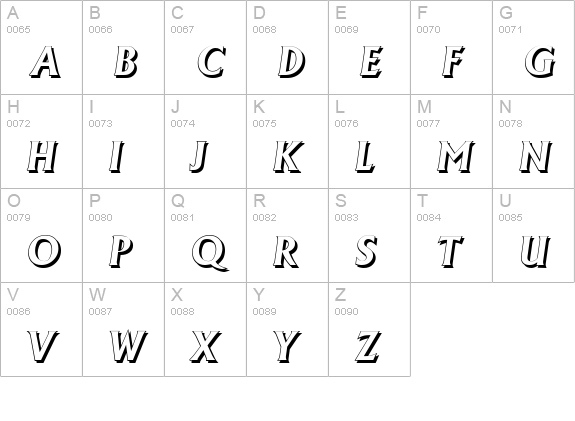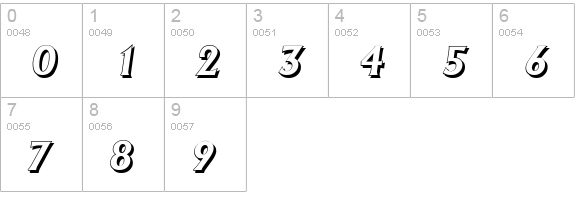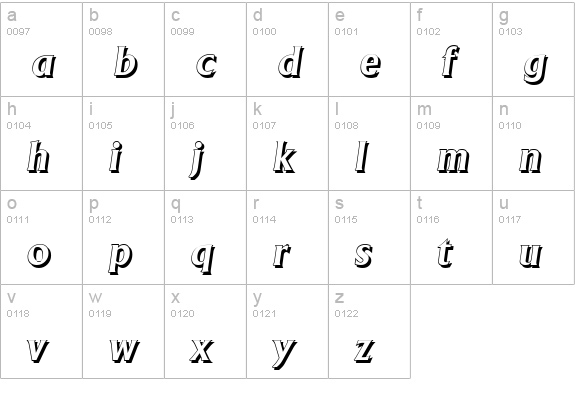
AdelonShadow-BoldItalic is a striking and bold font that commands attention with its unique blend of elegance and modernity. The italicized design adds a touch of sophistication to any project, making it perfect for bold headlines, branding, and creative designs. The strong and dynamic appearance of AdelonShadow-BoldItalic makes it a versatile choice for both digital and print media. This stylish font is available for free download at FontsMarket.com, where you can easily access and use it for personal and commercial projects. With its sleek curves and sleek lines, AdelonShadow-BoldItalic is sure to make a statement and elevate your designs to the next level. Experience the power and versatility of this font today by downloading it for free at FontsMarket.com.